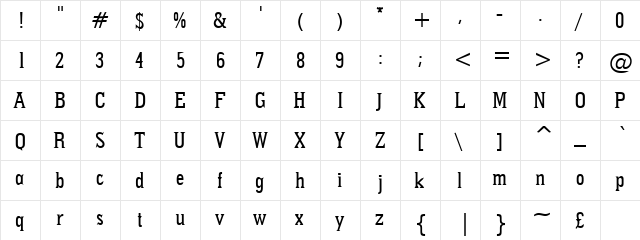
Pointed Normal
Design Context for Pointed Typeface
Pointed offers clean, dependable letterforms without strong stylistic allegiance, making it a practical choice for designers who need flexibility.
Pro Tip: Use Pointed in both headline and body roles to test its range before committing to a single application.